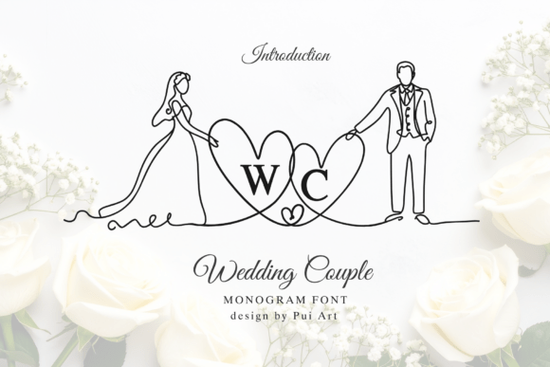
If you're designing wedding stationery, logos, or personalized keepsakes for couples, the Wedding Couple Monogram Font is a thoughtful, cohesive choice especially when you want initials to do more than just spell names. It’s not a traditional alphabet: each uppercase letter pairs with a continuous-line illustration of a bride and groom holding hearts, with their silhouettes subtly forming the shape of the letter itself. This “one-line art” approach makes it ideal for clean digital use, laser engraving, vinyl cutting, or hand-lettered-style print projects.
How does this monogram font actually work in practice?
You type two initials say, “E” and “M” and get a single, unified graphic where those letters are visually interwoven with a romantic couple motif. No layering, no alignment headaches. The design is built into the glyph, so it scales smoothly at any size and stays crisp on business cards, save-the-dates, or embroidered napkins. Because it’s vector-based (included in OTF and TTF formats), it works reliably in Silhouette Studio, Cricut Design Space, Adobe Illustrator, and even free tools like Inkscape.
It’s especially useful if you’re creating consistent branding across multiple touchpoints for example, a couple’s wedding website header, matching signage for the ceremony and reception, and custom favor tags. Since the style is minimalist but meaningful, it avoids looking dated or overly ornate. That timelessness matters whether you're a small business owner offering bespoke invitations or a hobbyist making DIY bridal shower gifts.
What kinds of projects suit this font best?
- Wedding invitations and suites Use it as the focal point on the cover or as a subtle watermark behind text.
- Engraved or etched gifts Think wooden coasters, acrylic cake toppers, or stainless steel flasks. The clean lines translate well to machine-cut surfaces.
- Digital branding Logo mockups, social media profile highlights, or email newsletter headers benefit from its visual storytelling.
- Silhouette and Cricut projects Cut files generate cleanly thanks to the unbroken stroke design, reducing weeding time.
- Print-on-demand products Works well on mugs, tote bags, and framed art where simplicity and emotional resonance matter more than dense detail.
How does it compare to other decorative fonts?
Unlike many script or vintage fonts that rely on flourishes or heavy textures, the Wedding Couple Monogram Font communicates intimacy through structure not decoration. If you’ve used something like the vintage Spur font for rustic barn weddings or the Aurelina Monogram font for classic serif elegance, you’ll notice this one fills a different niche: it’s symbolic first, typographic second. It’s less about letterform beauty and more about representing union literally built into the shape.
For designers who regularly mix fonts in one layout, pairing it with a simple sans-serif (like Montserrat or Lato) for body text keeps focus on the monogram without visual competition. And because it’s designed for both digital and physical output, you won’t need separate versions for web and print a practical plus when juggling tight deadlines.
Where can you use it right now?
One thing to keep in mind: because the illustrations are part of the letterforms, readability at very small sizes (under 24pt in print) may soften. It shines brightest at medium to large scale think signage, logos, or centered invitation headers. Also, while it’s optimized for couples, it works just as well for same-sex pairings or non-traditional unions; the design is inclusive by nature, not assumption.
Before you start designing:
- Test the font at your intended final size especially if using for engraving or embroidery.
- Check contrast against your background color; light line art needs sufficient value difference to stay legible.
- Pair it intentionally avoid other illustrative or highly stylized fonts nearby.
- Remember: this font tells a story in one glance. Let it breathe don’t crowd it with extra graphics or effects.